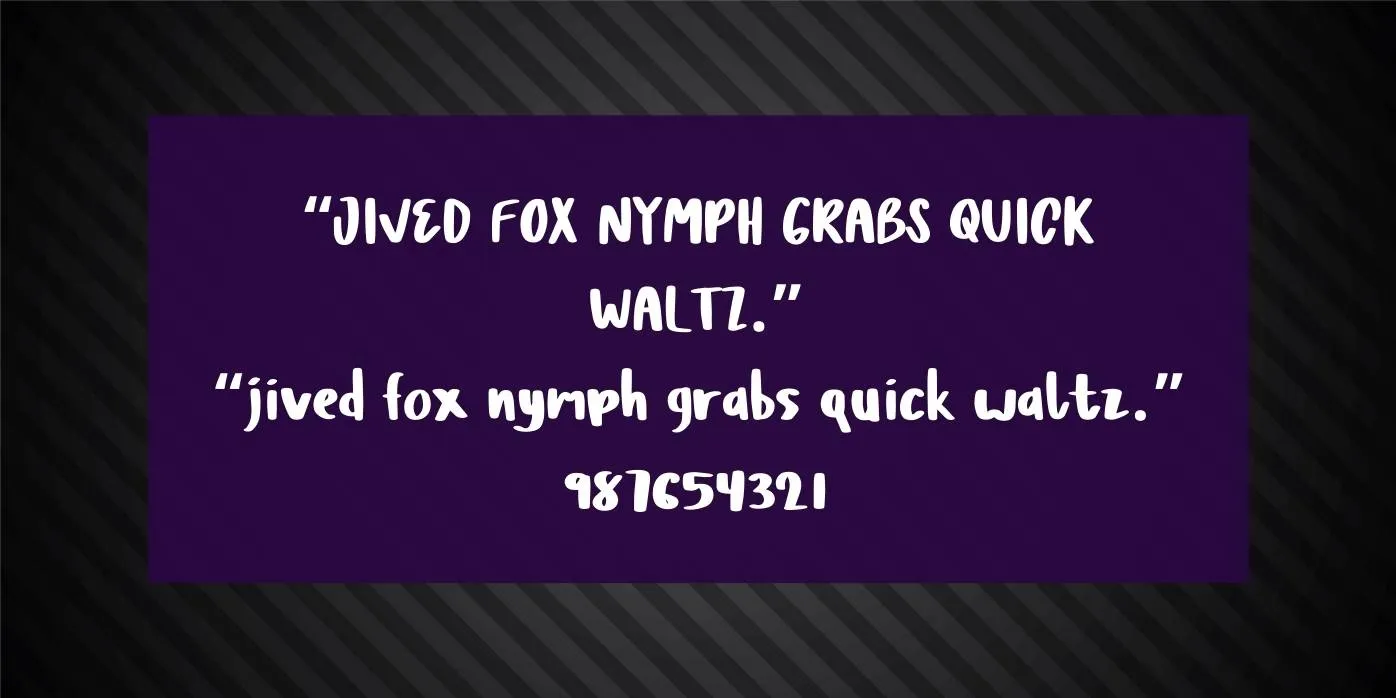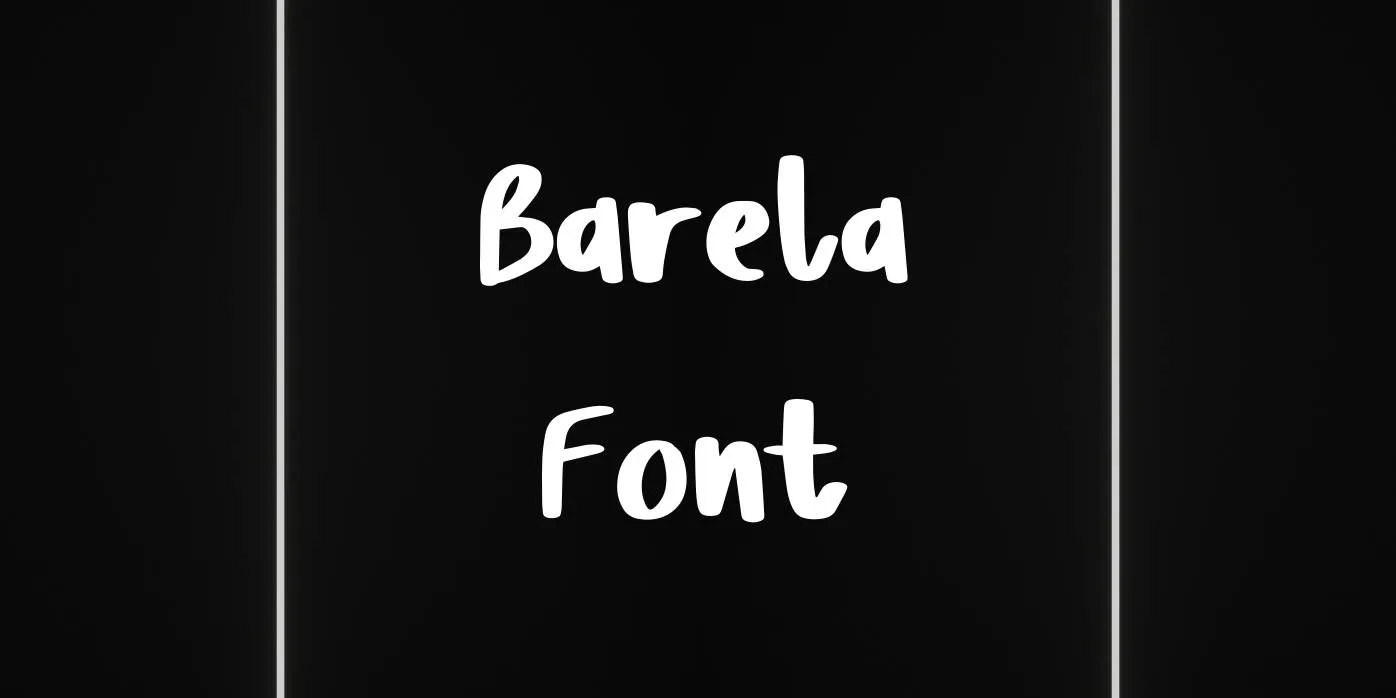
Barela Font
Barela Font is a script typeface designed by Argentine graphic designer Alejandro Paul. The font was created in 2006 and released through the Argentine type foundry Sudtipos. This Font is inspired by early 20th-century European sans-serifs but with a more modern twist. The overall effect is clean and crisp, with just a hint of personality.
It is also known for its immense language support same to the pariseinne font and it can support many different international alphabets. Download The font is available in both regular and bold weights and comes with a full character set including accented characters, ligatures, and fractions. This Font is a great choice for headlines, logos, and other display uses. It also works well for body text in smaller sizes.